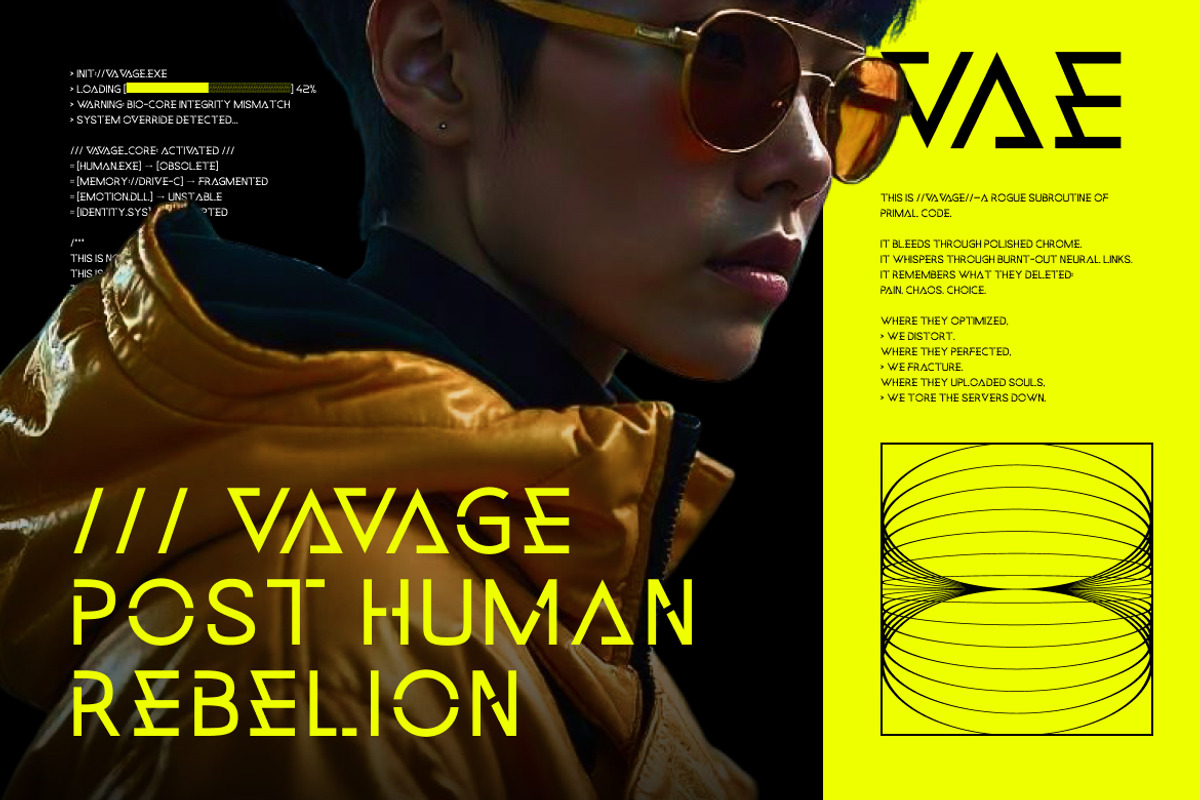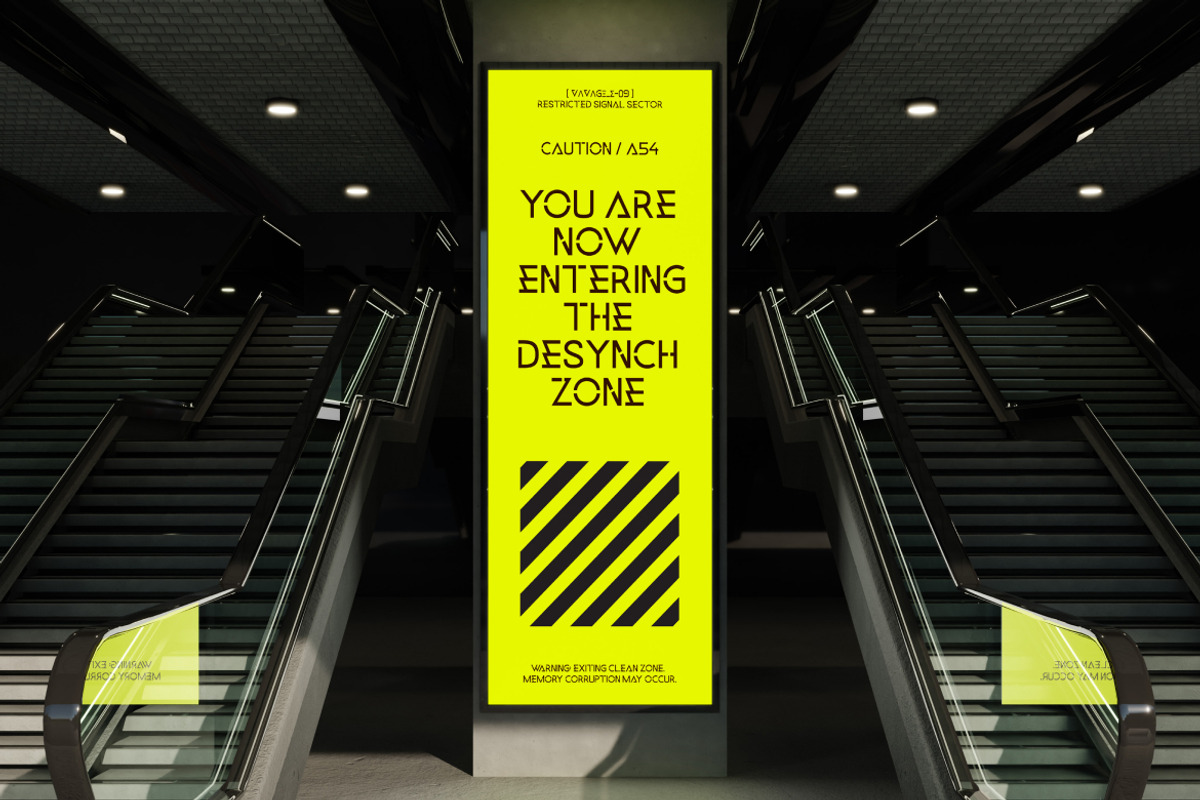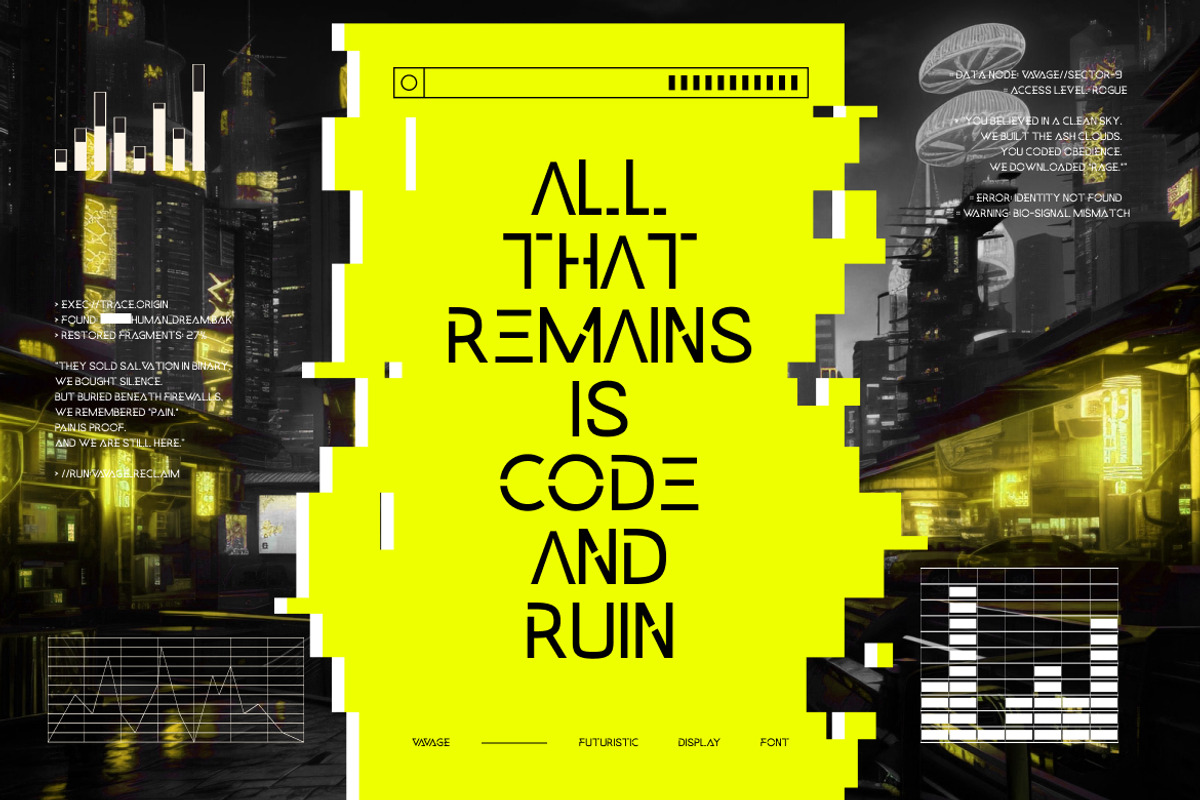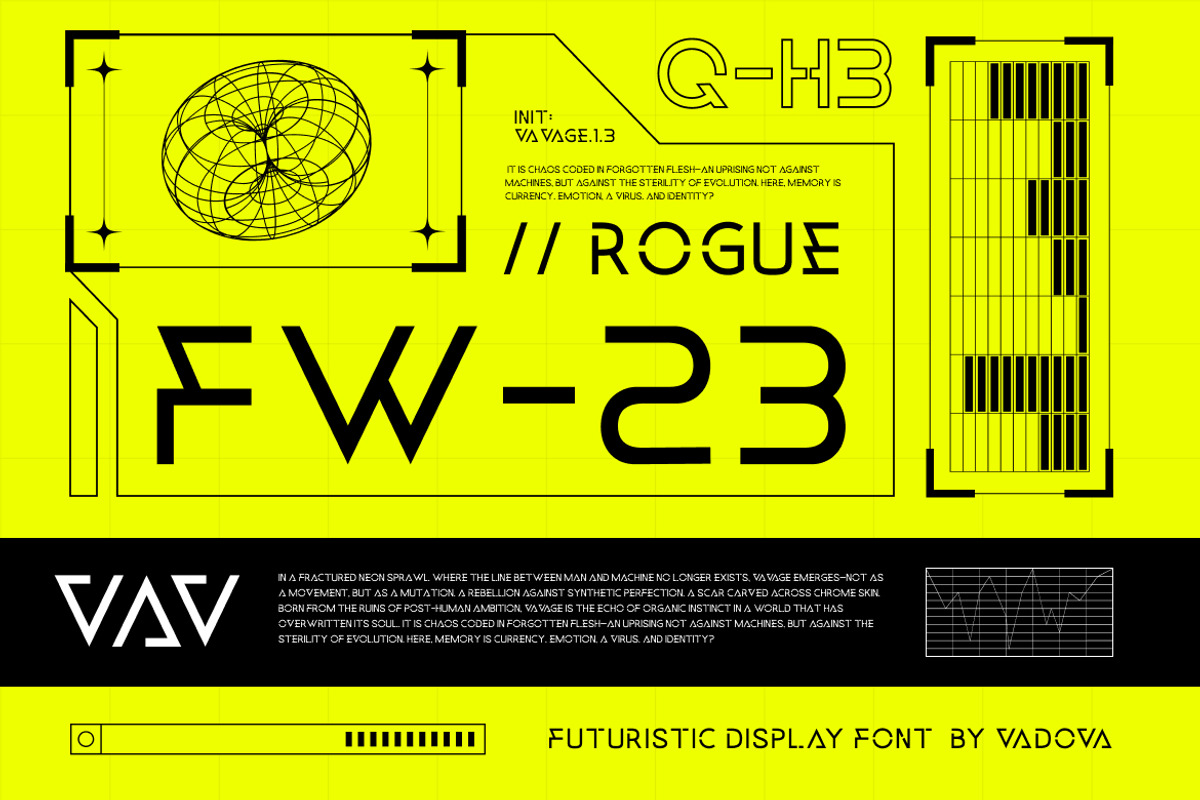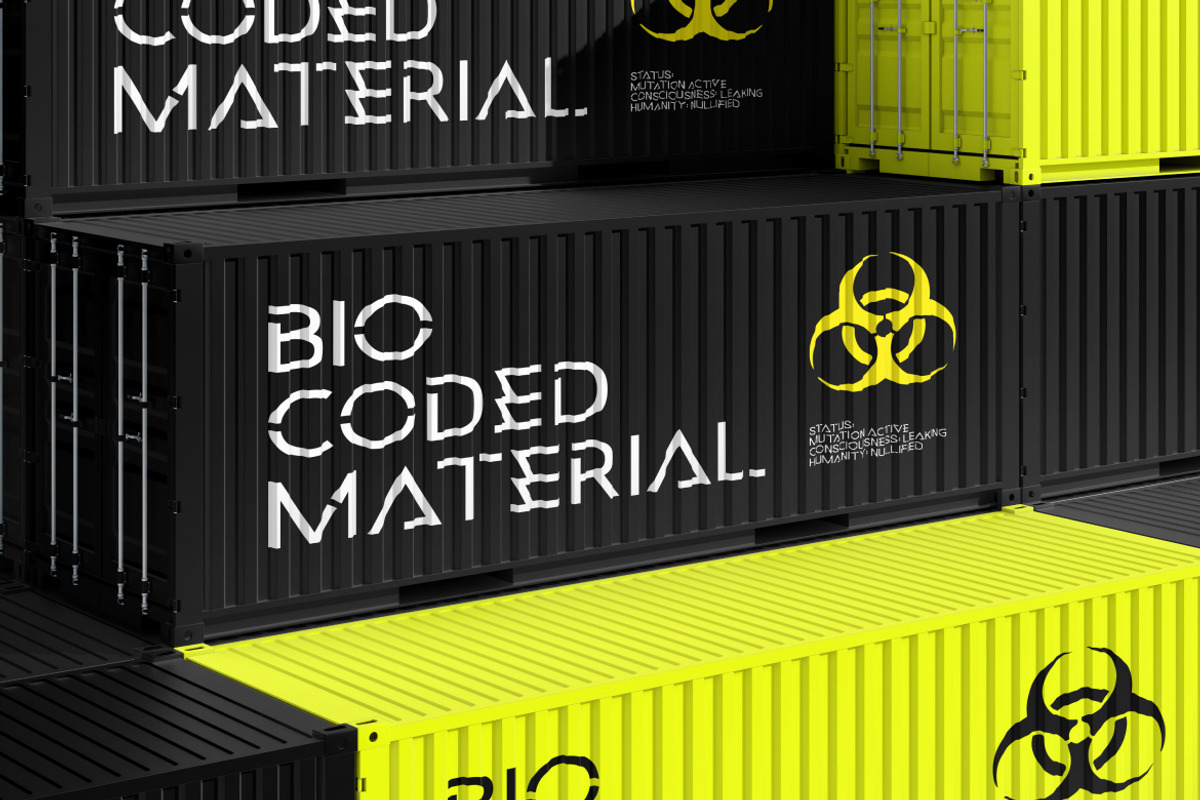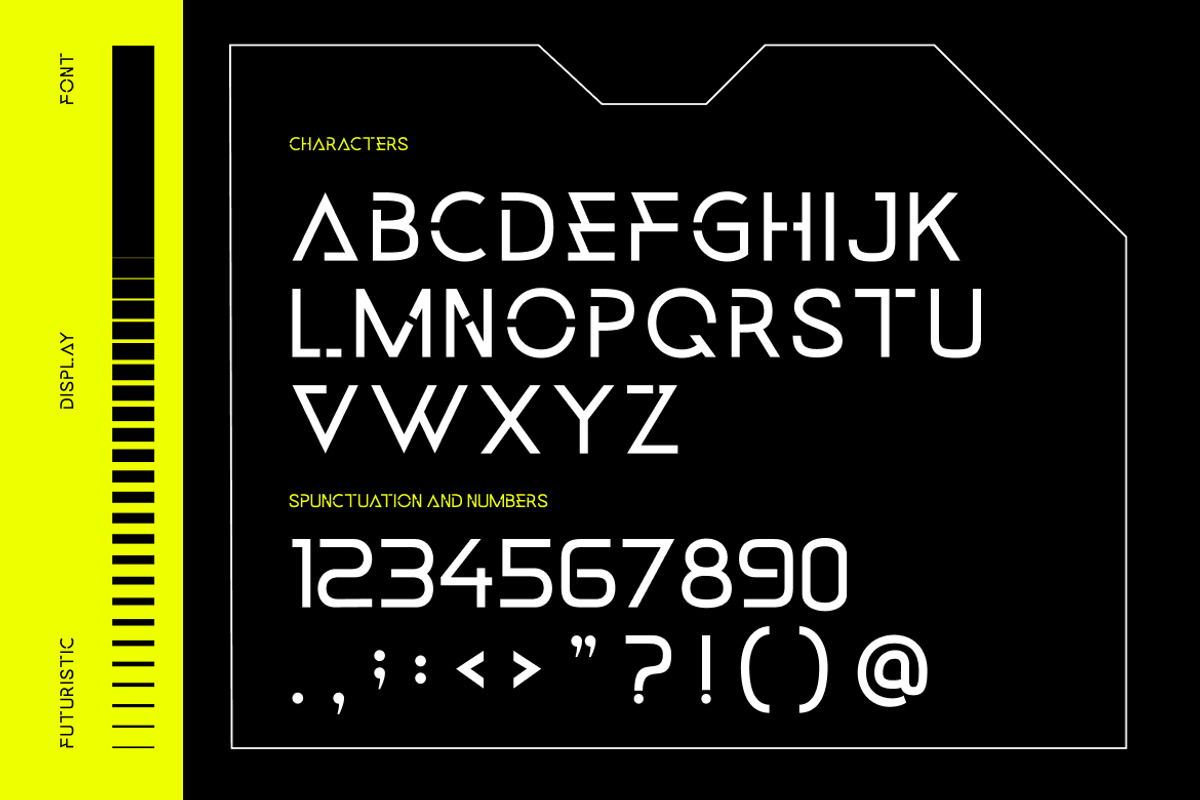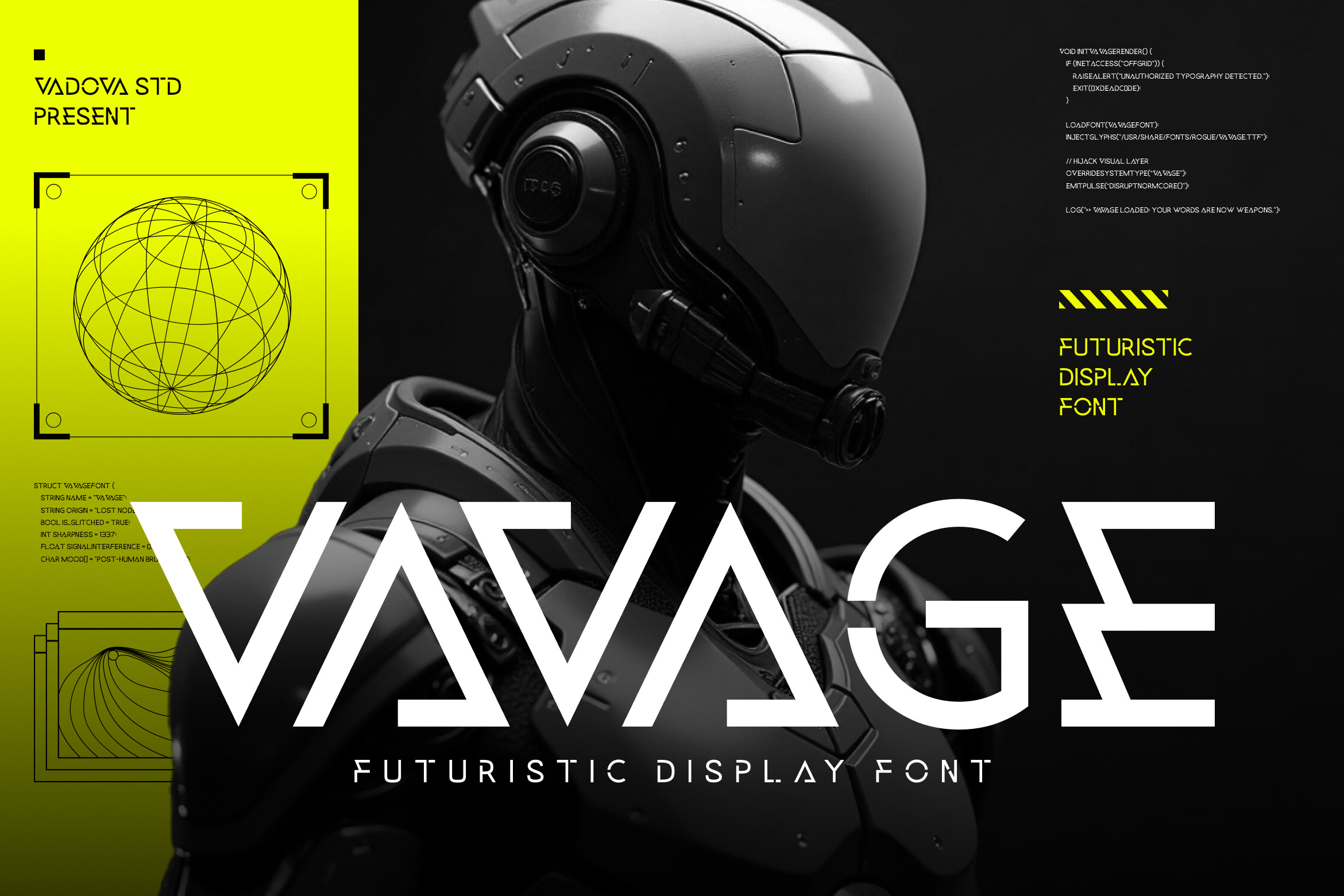
Vavage – Futuristic Display Font
Vavage is a futuristic geometric display font crafted with sharp lines, experimental angles, and bold sci-fi energy. Its unique letterforms bring a sense of innovation, cyber aesthetic, and high-tech design, perfect for projects that push boundaries.
Whether you’re designing for esports, sci-fi movie posters, tech startups, or digital campaigns, Vavage provides a powerful, modern, and versatile typeface that commands attention.
Highlights
Futuristic geometric display design
Sharp, bold, and innovative style
Perfect for sci-fi, cyberpunk, and esports branding
Eye-catching experimental letterforms
Balanced for both digital & print use
Best Uses
Sci-Fi Movie Posters – cinematic futuristic look
Esports & Gaming Logos – bold, competitive edge
Tech Startups & Branding – modern innovative appeal
Cyberpunk-Inspired Projects – neon futuristic identity
UI/UX & App Interfaces – digital-focused typography
Event Flyers & Music Visuals – stylish futuristic vibe
Unleash the future of design with Vavage, a futuristic display font that embodies innovation, speed, and digital power.